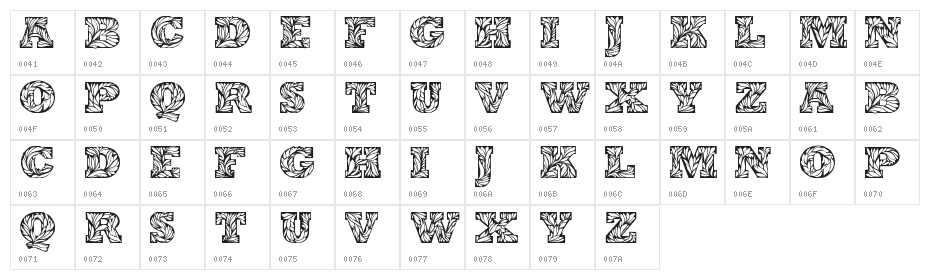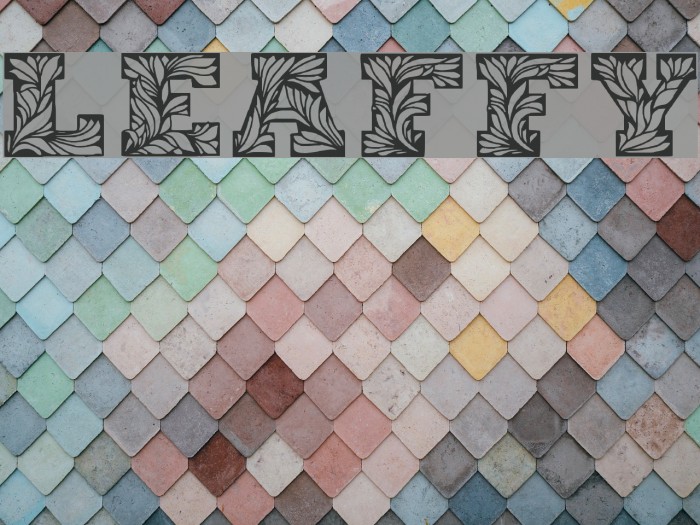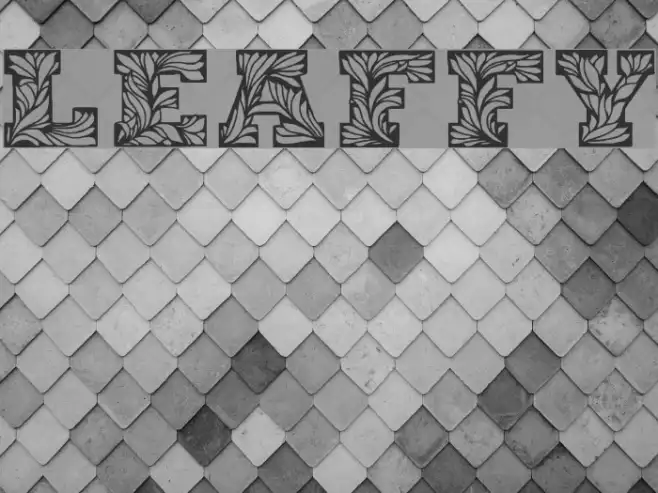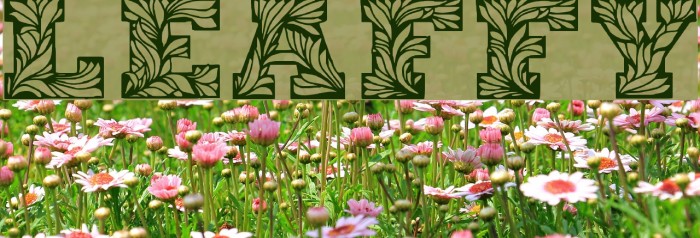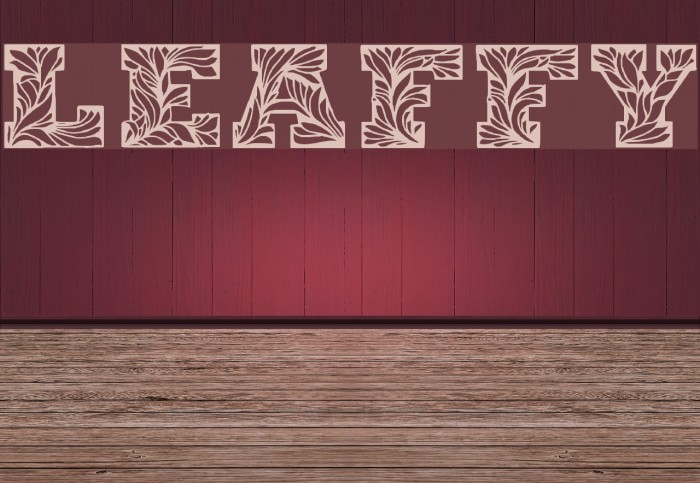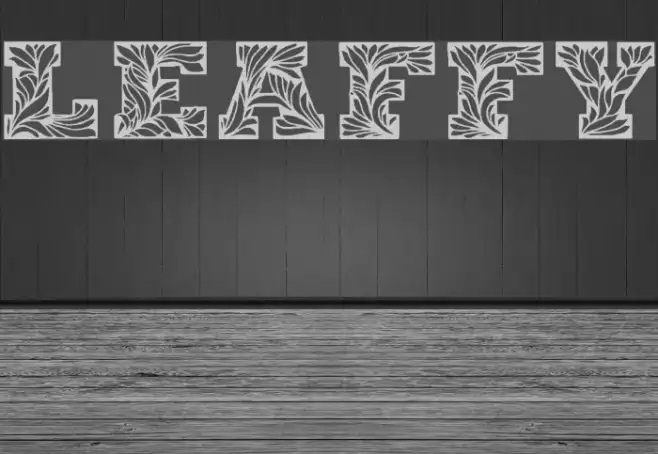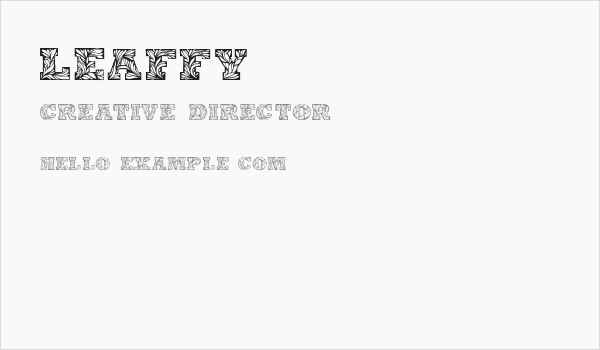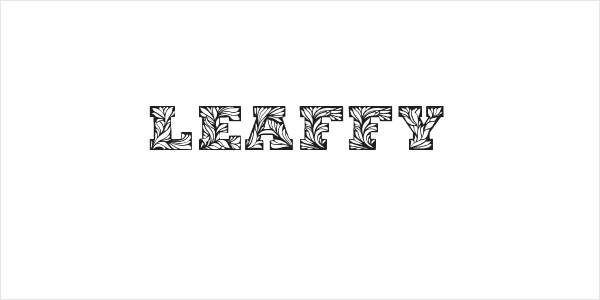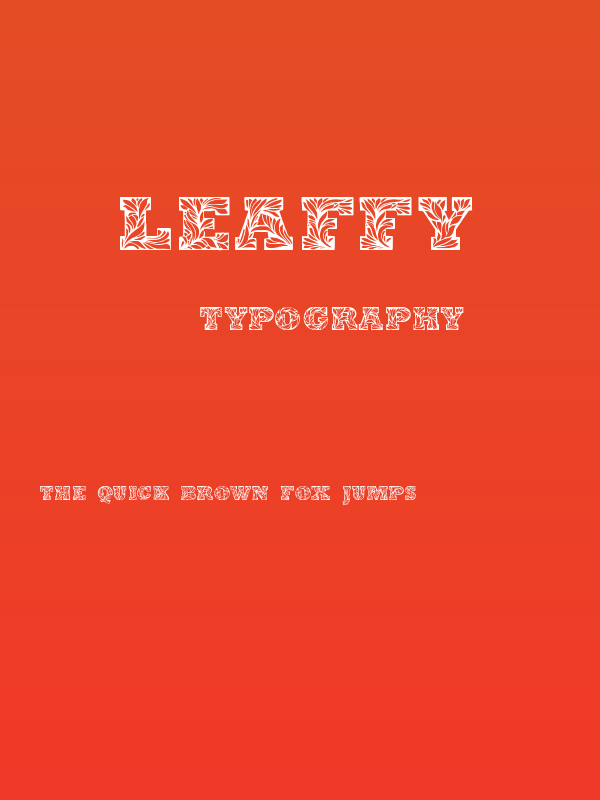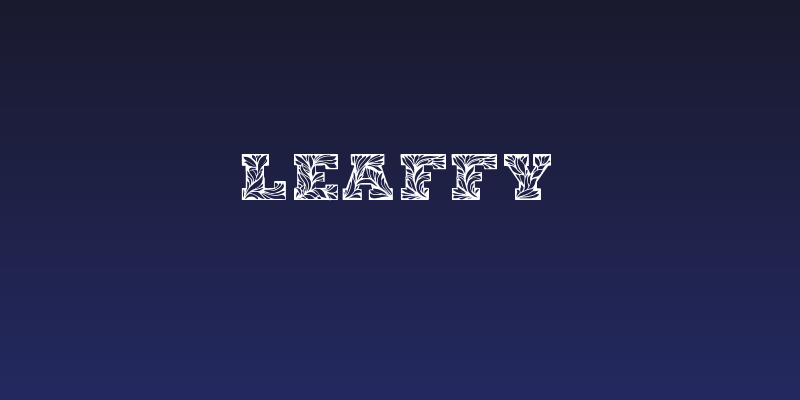
Leaffy Font
Leaffy Description
This decorative font features intricate leaf patterns embedded within each character, creating a unique and organic appearance. The uppercase letters are bold and prominent, with each letter adorned with detailed foliage, giving a natural and artistic flair. The design is consistent across all characters, maintaining a cohesive look that emphasizes nature and creativity. The font's style is both eye-catching and sophisticated, making it ideal for projects that require a touch of elegance and a connection to nature. Its intricate details make it suitable for larger displays where the leaf patterns can be fully appreciated.
| Proposed Projects | Ideal for eco-friendly branding, nature-themed events, wedding invitations, and artistic posters. |